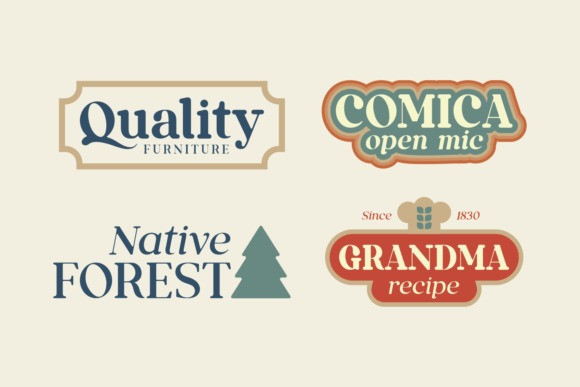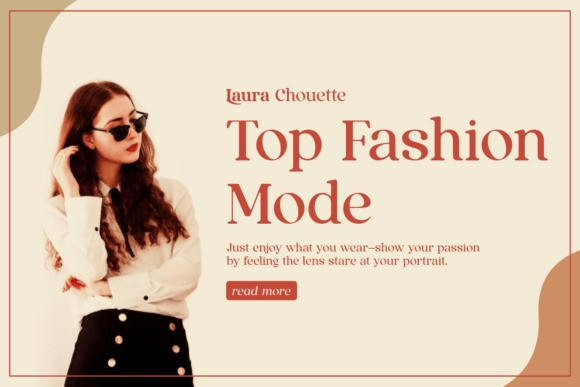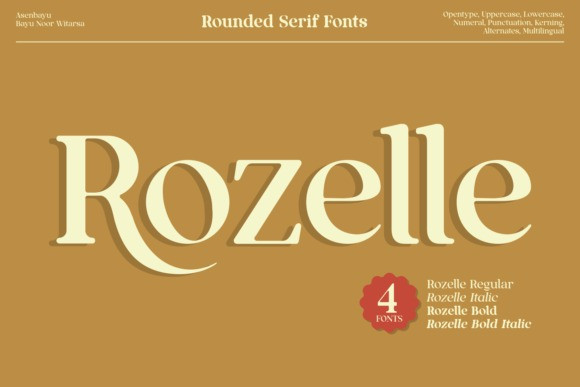
Rozelle Font
Rozelle Serif Font is a serif font family with rounded edges. It is formed as a unique multipurpose font that you can use in vintage, retro, and modern designs. This font is perfect for a variety of projects such as branding, poster displays, logo designs, magazine covers, and more. This font is perfect for anyone who needs a unique serif font!